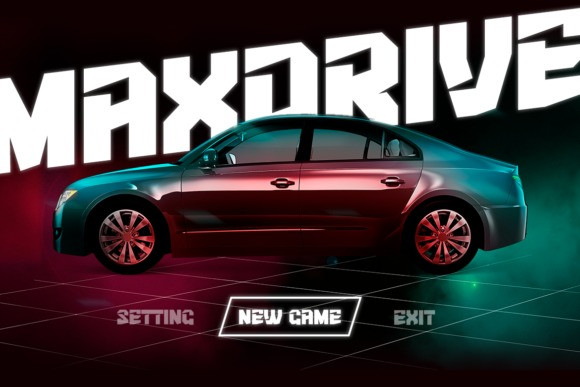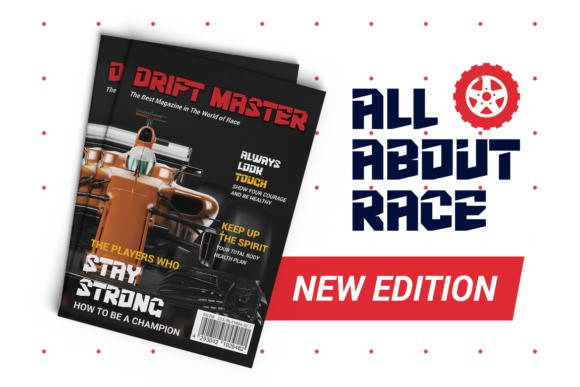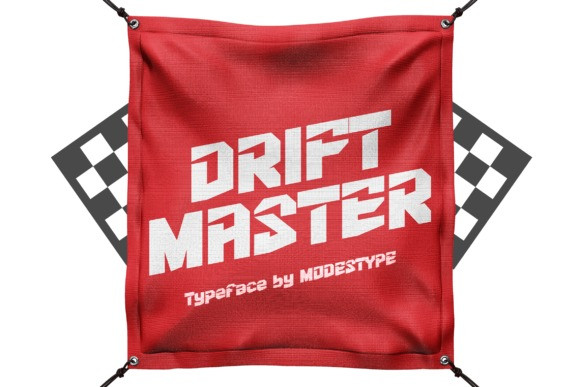
Drift Master Font
Drift Master Font is a cool and futuristic display font. It suits perfectly online games, teens event posters, school supplies, movie title, youtube covers, youtube thumbnails, social media page covers and various other design ideas.